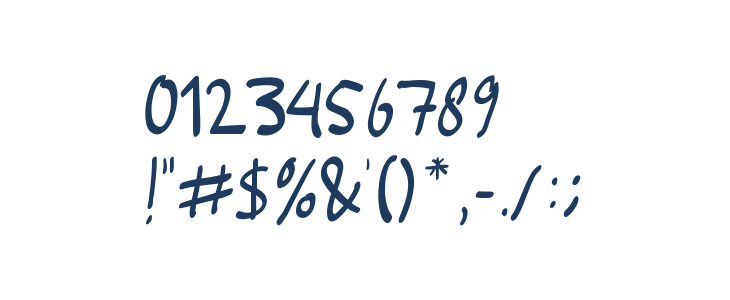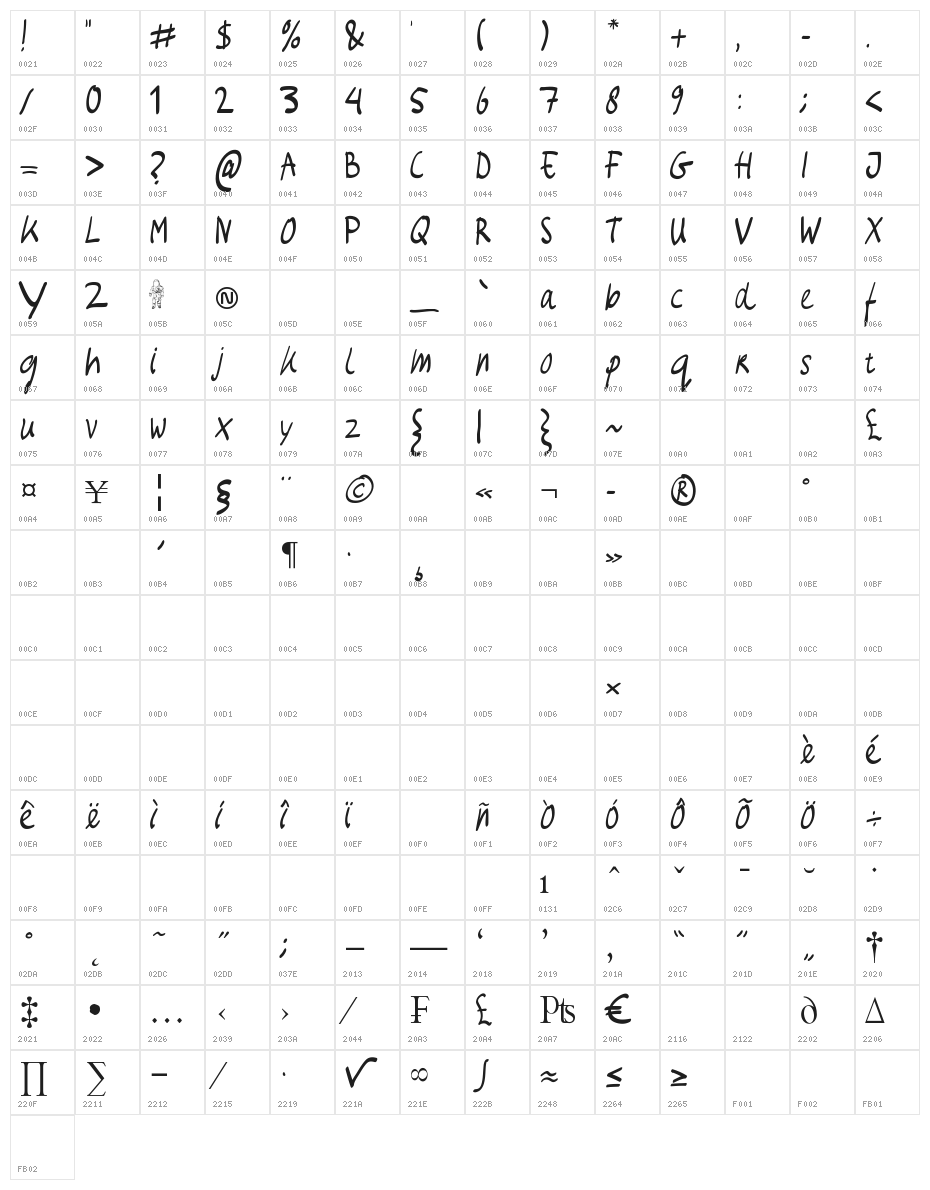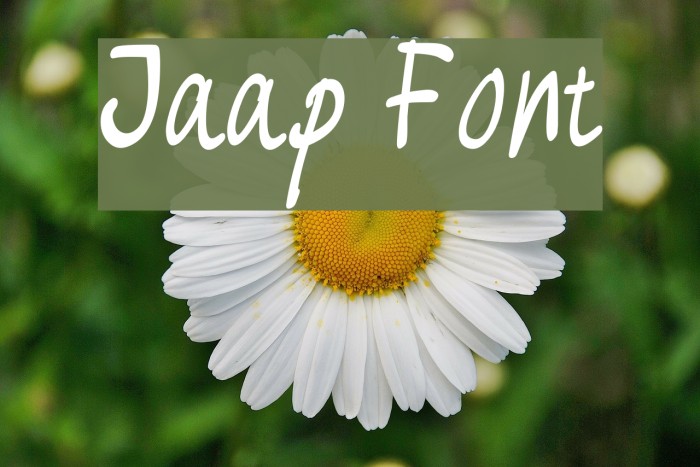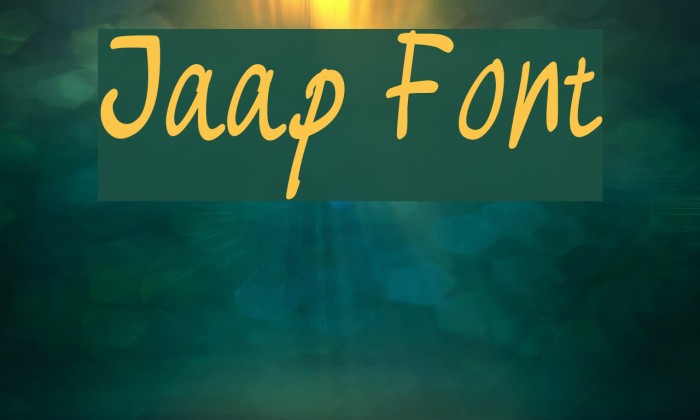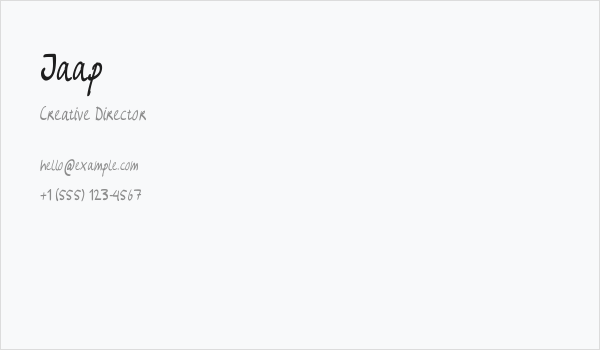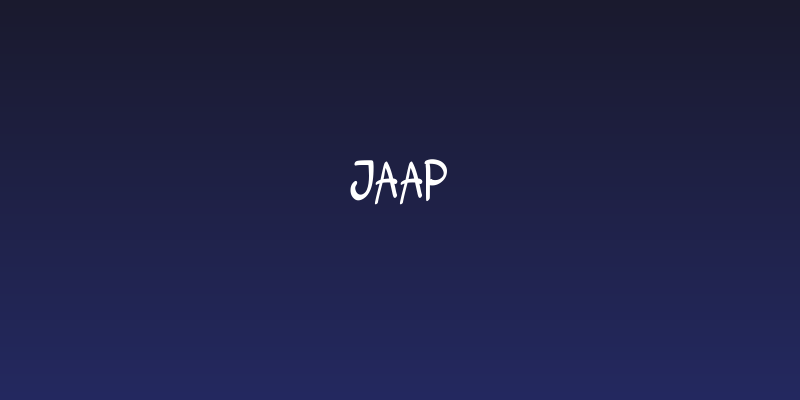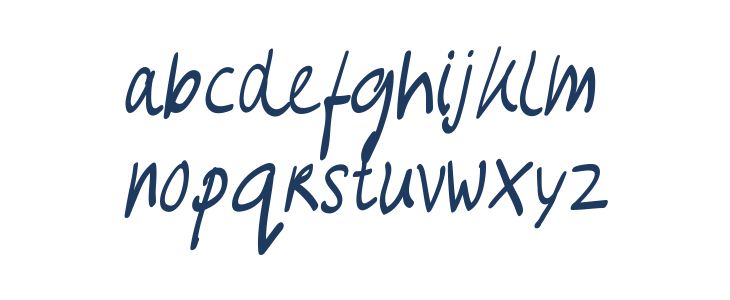
Jaap Font
Jaap Description
This font features a casual, handwritten style that exudes a sense of informality and personal touch. The letters are slightly slanted, giving it a dynamic and lively appearance. The strokes are uneven, mimicking the natural flow of handwriting, which adds to its charm and authenticity. The uppercase and lowercase letters are well-balanced, with a consistent stroke width that maintains readability. The numerals and special characters are crafted with the same playful and spontaneous style, making them blend seamlessly with the alphabet. This font is perfect for projects that require a personal, approachable, and friendly feel.
| Use Case | Logos, Headlines, Informal Text |
| Proposed Projects | Ideal for greeting cards, personal blogs, informal invitations, and creative branding. |